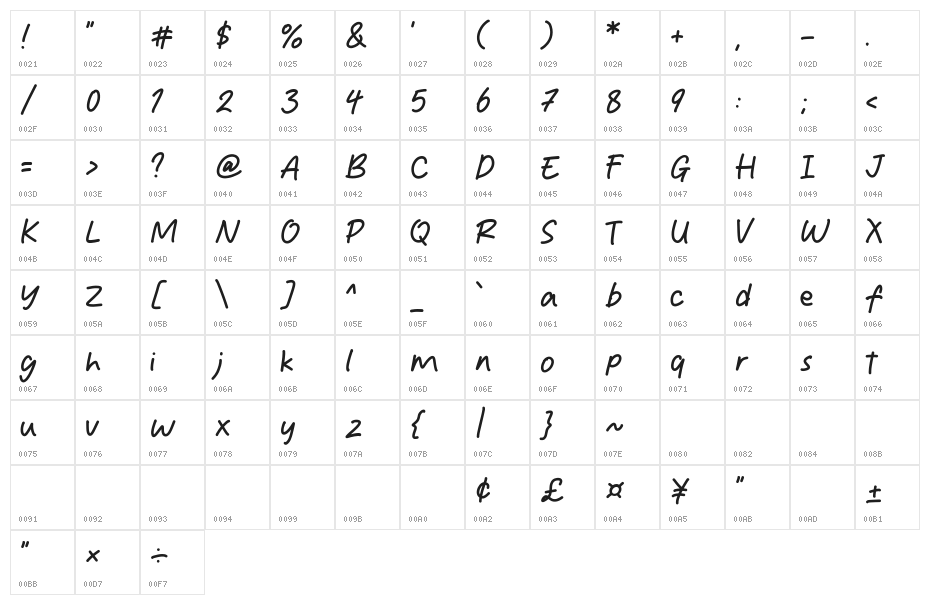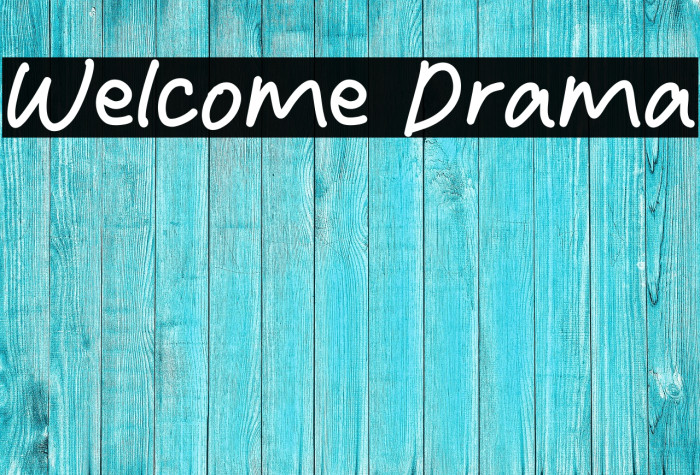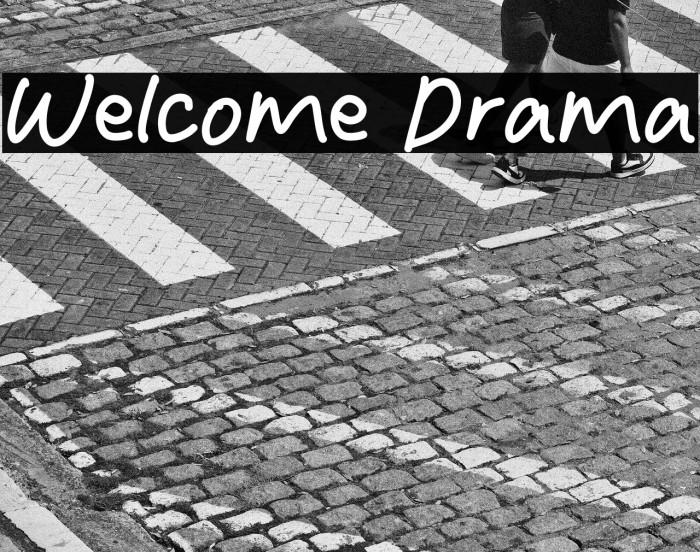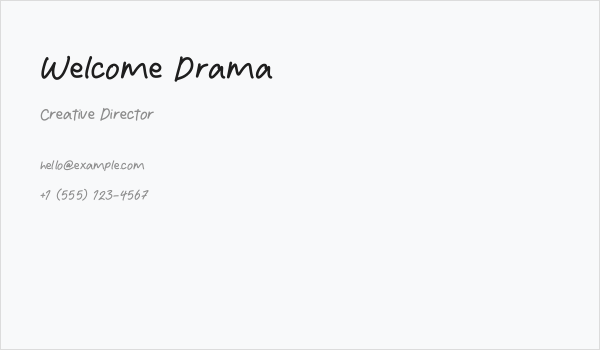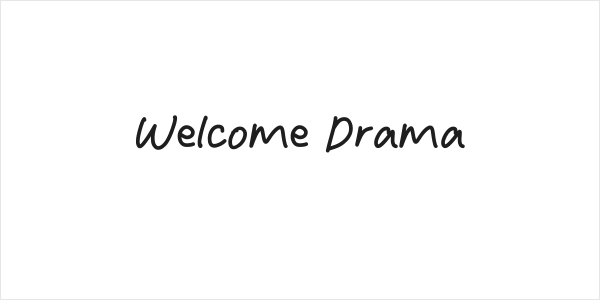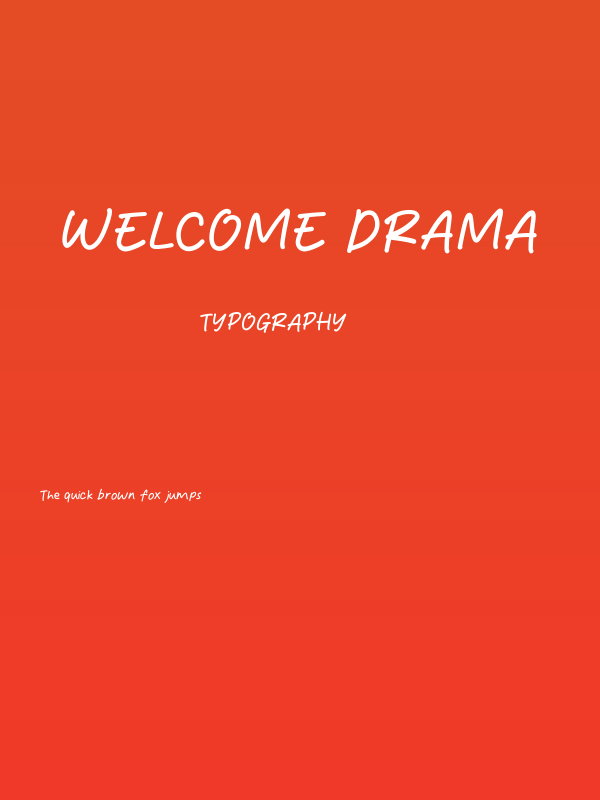
Welcome Drama Font
Welcome Drama Description
This font exudes a casual and friendly handwritten style, characterized by its smooth, flowing curves and slightly uneven baseline. The letters are well-spaced, giving it a relaxed and approachable feel. The uppercase and lowercase letters maintain a consistent style, with rounded edges and a slight slant that adds to its informal charm. The numerals and special characters are designed to match the playful aesthetic, making it suitable for projects that require a personal touch. Its overall appearance is both modern and timeless, making it versatile for various design needs.
| Overall Style | Casual, Friendly |
| Use Case | Headlines, Informal text, Personal projects |
| Proposed Projects | Ideal for greeting cards, personal invitations, casual branding, and social media graphics. |